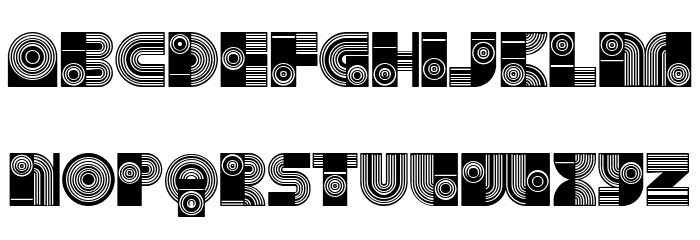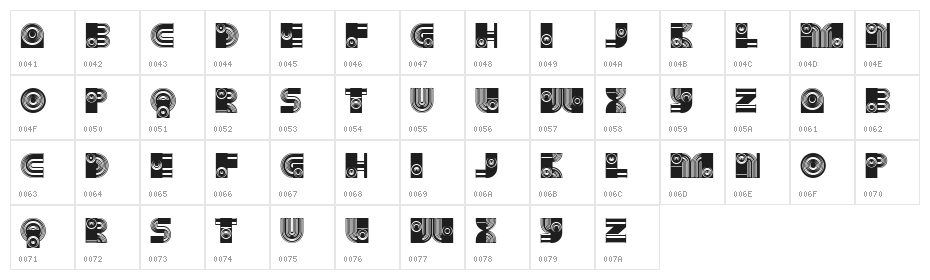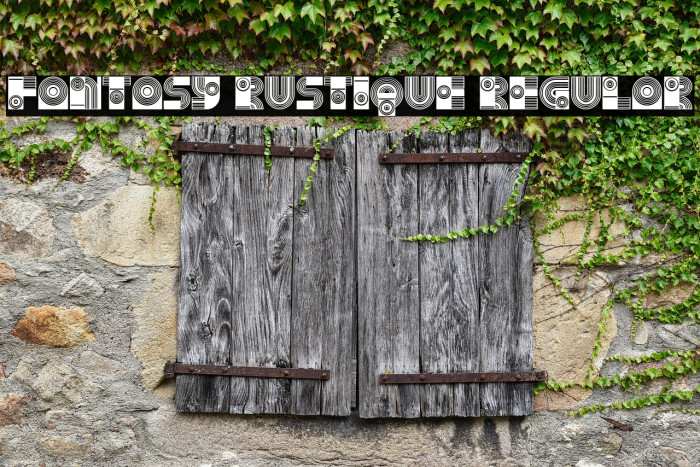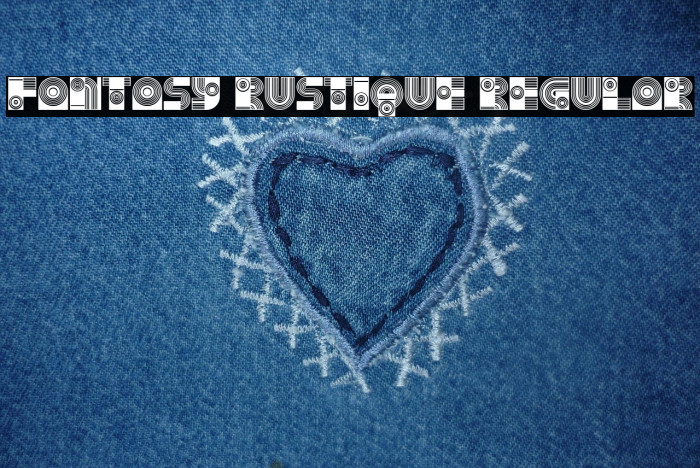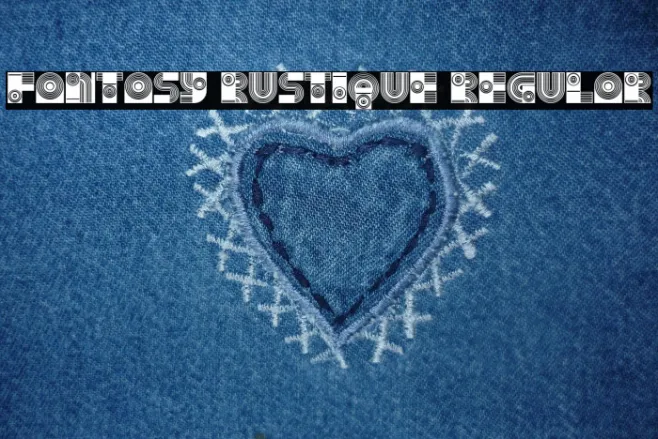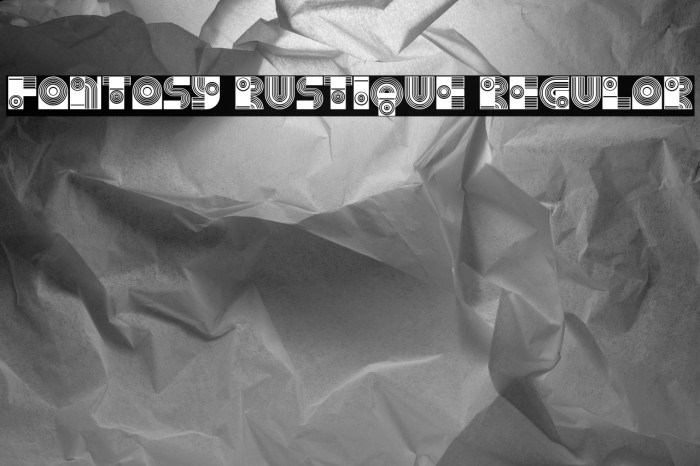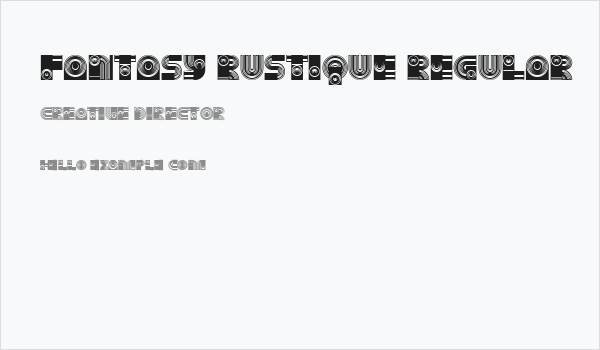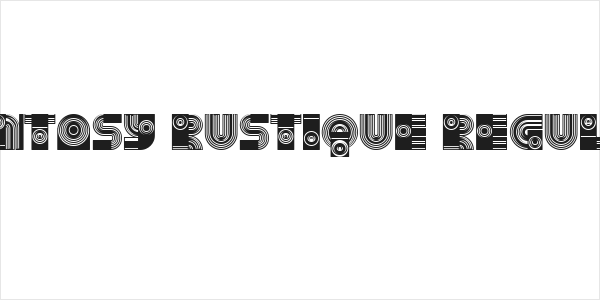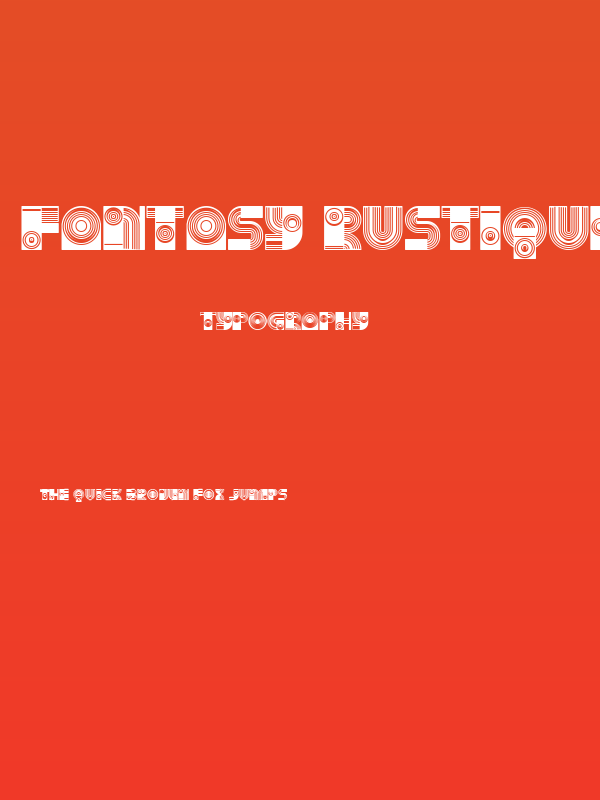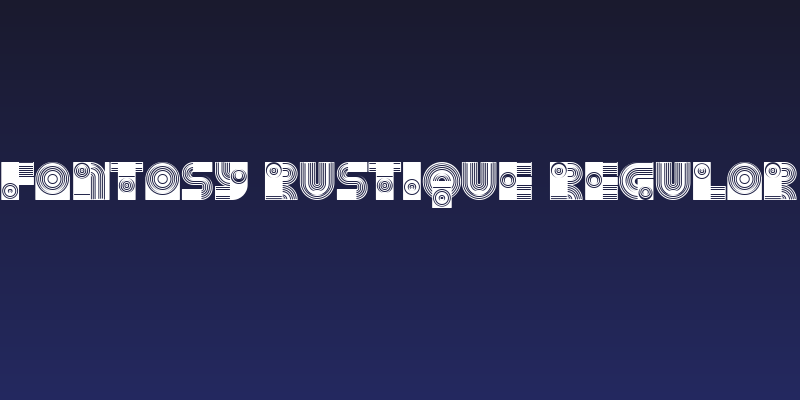
Fantasy Rustique Regular Font
Fantasy Rustique Regular Description
This font features a bold and decorative style with intricate patterns and concentric circles within each character. The design is highly geometric, with a strong emphasis on symmetry and repetition. Each letter is filled with multiple layers of lines and shapes, creating a sense of depth and complexity. The font is visually striking and commands attention, making it ideal for creative and artistic projects. Its unique style is reminiscent of vintage and retro designs, yet it maintains a modern flair through its structured and organized appearance.
| Proposed Projects | Ideal for posters, album covers, branding, and any project requiring a bold, artistic touch. |